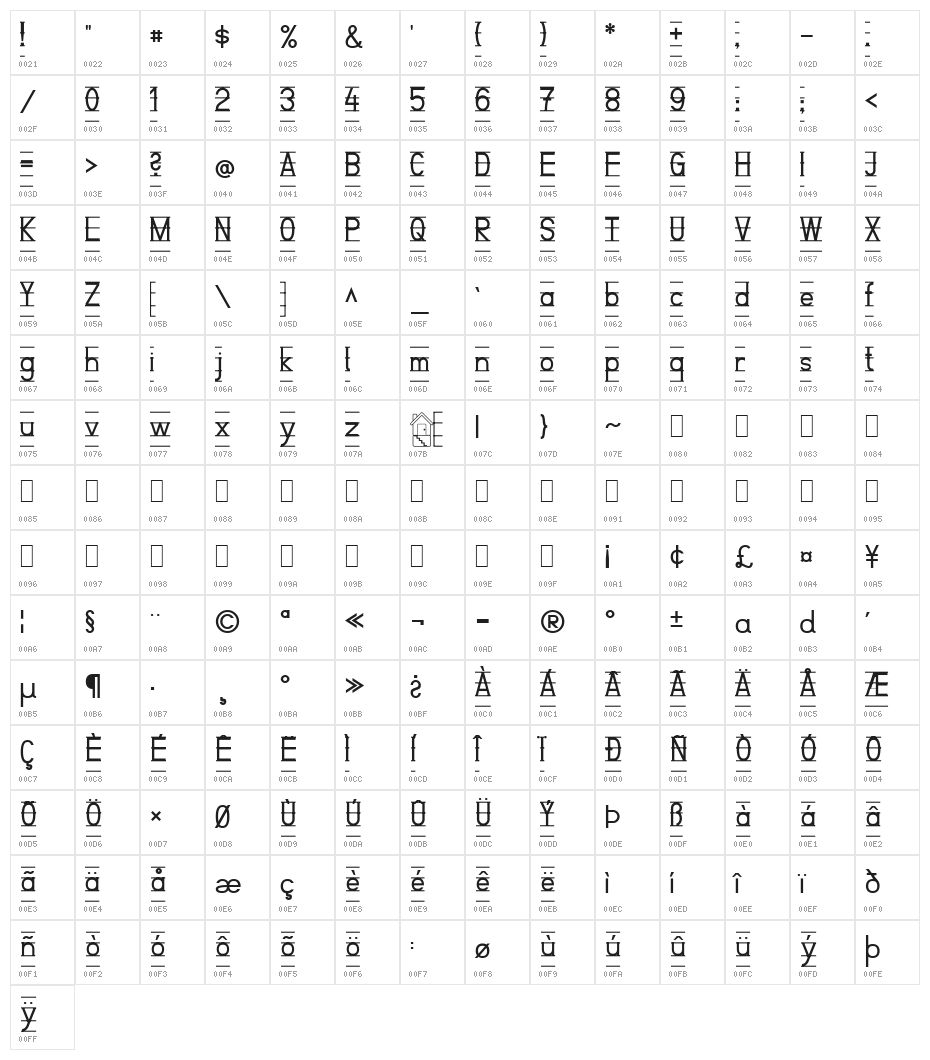
Schulfibel Nord Linie 2 Font
Schulfibel Nord Linie 2 Description
This font features a geometric and structured design with a modern aesthetic. The uppercase letters are tall and narrow, with consistent stroke widths that give a uniform appearance. The lowercase letters maintain the same geometric style, with rounded edges that soften the overall look. The numerals are clear and legible, matching the height and style of the uppercase letters. Special characters are included, maintaining the same design principles, ensuring consistency across all glyphs. The font's clean lines and balanced proportions make it suitable for various design applications.